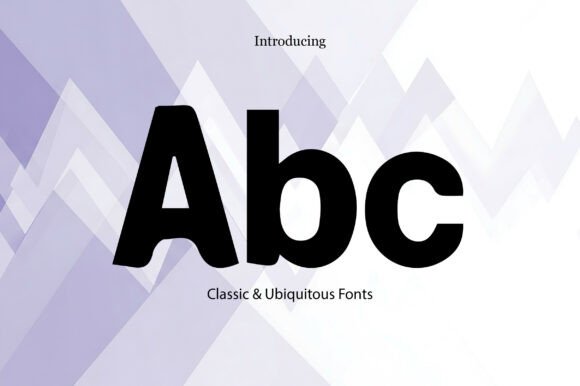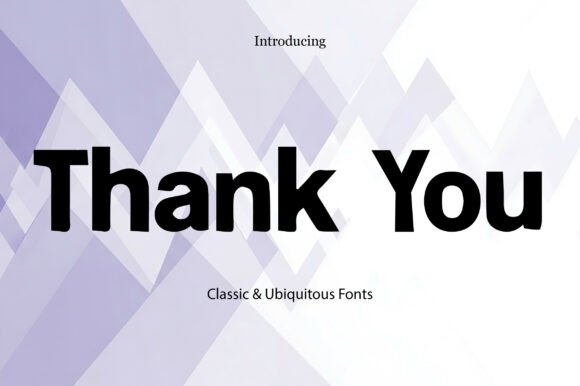
Introduction to Helvetica Font
Helvetica is a timeless neo-grotesque sans-serif typeface known for its clean lines, balanced proportions, and exceptional readability.
Designed with a neutral and modern aesthetic , it delivers clarity and professionalism across branding, editorial, corporate, and digital applications Its bold weight, as shown in the sample, emphasizes strength and impact while maintaining smooth curves and consistent stroke widths.
Key Features of Helvetica Font
Why Choose Helvetica Font?